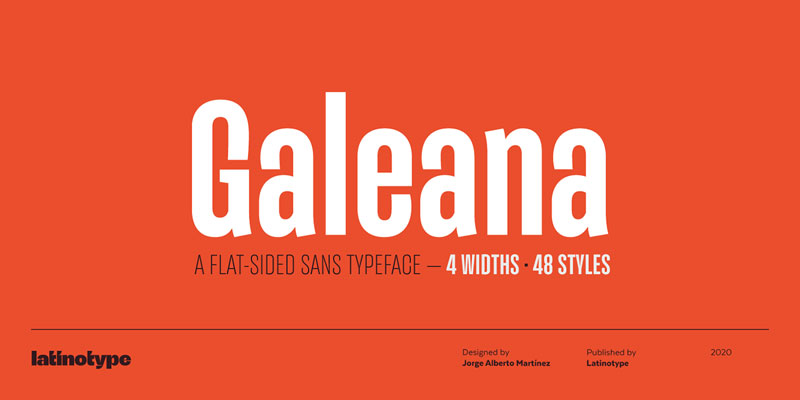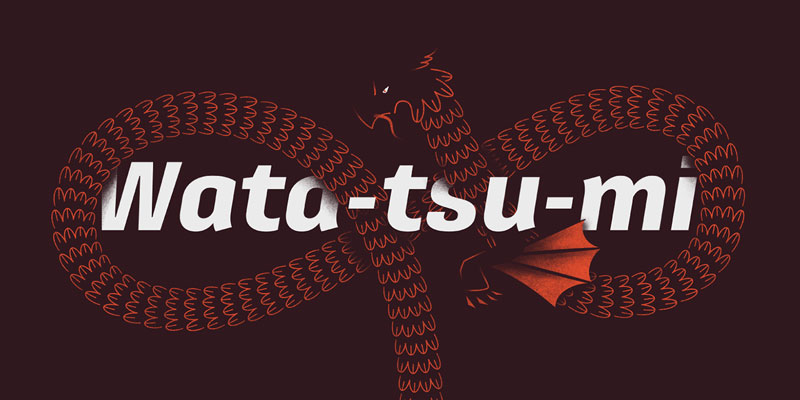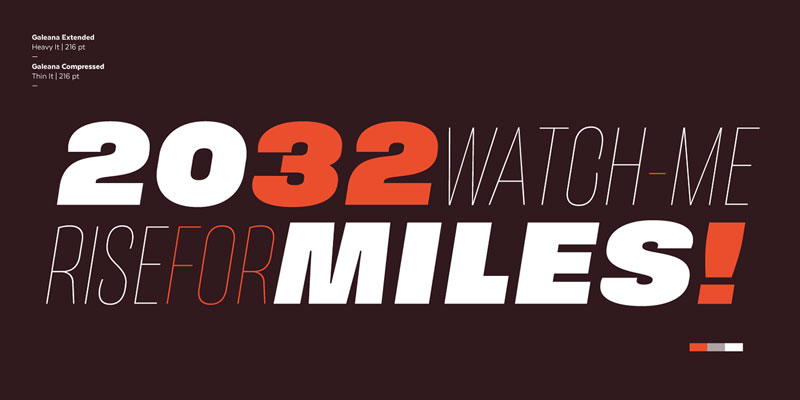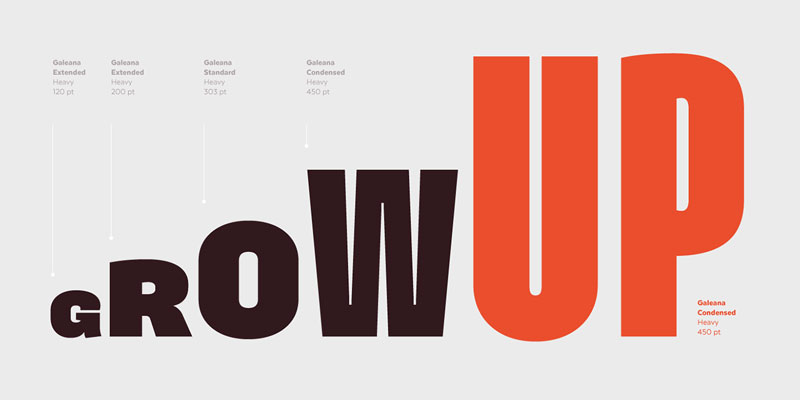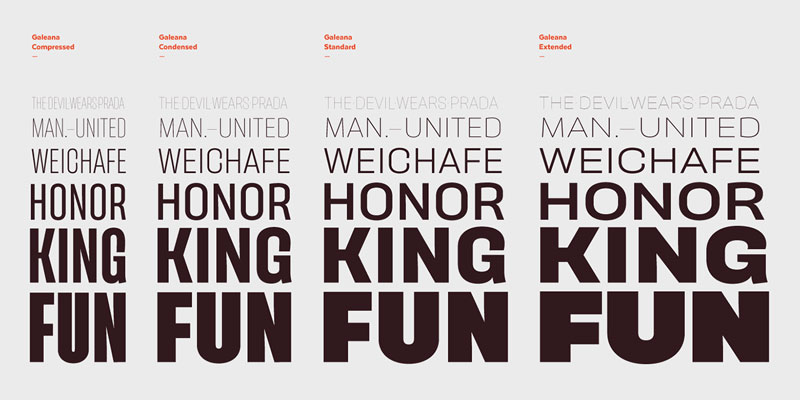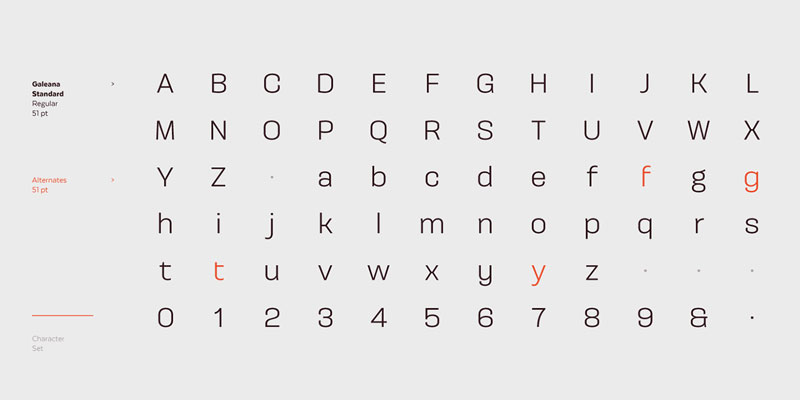
Galeana Font Family
Galeana is a flat-sided sans serif typeface that features a closed aperture. The font is a reinterpretation of Latin American-flavored typefaces used for European editorial designs such as Plastique and Zembla magazines. This superfamily consists of 4 subfamilies: Compressed, Condensed, Standard and Extended. The heaviest and narrowest variants—created at the early stage of the design process—resemble the slender trunks of the Galenas (African tulip trees). The other variants have an extended width, which evokes the broad crown shape of these trees.
Galeana comes in 48 styles and contains 417 glyphs that support over 200 Latin-based languages. The font performs well for mid-length text and it is the perfect choice for headlines, editorial design, brand identity design, advertising, social media and use on Tv.